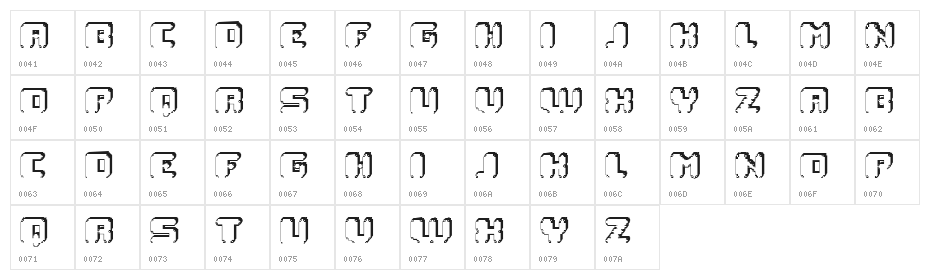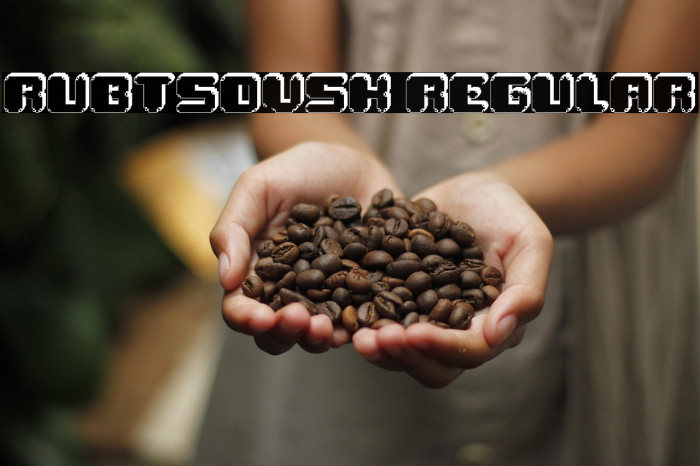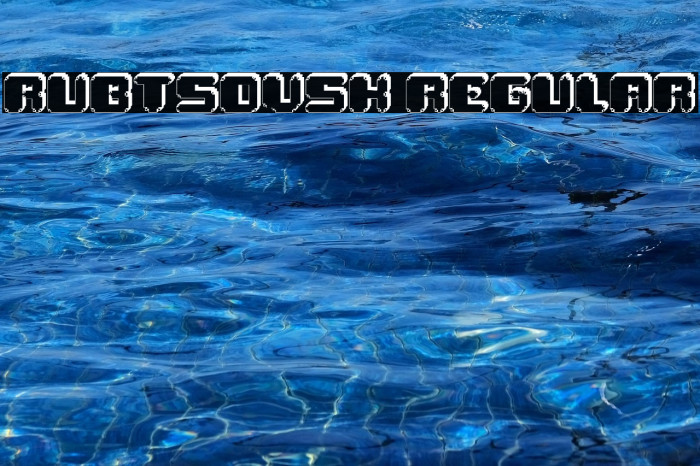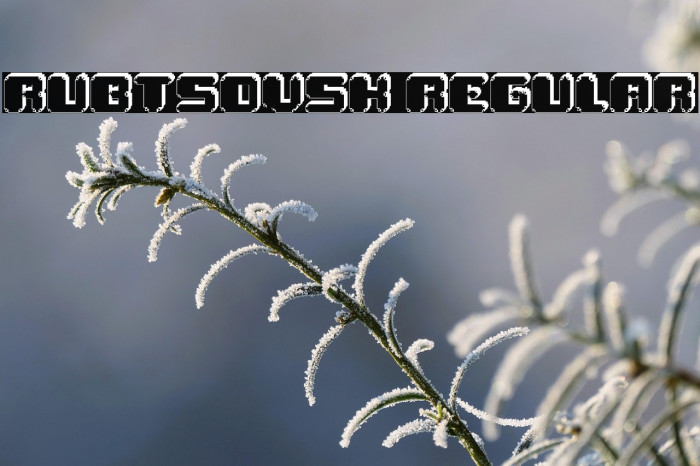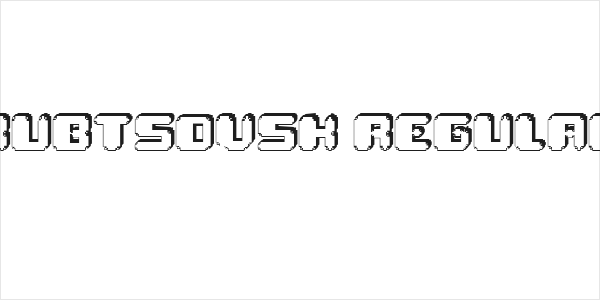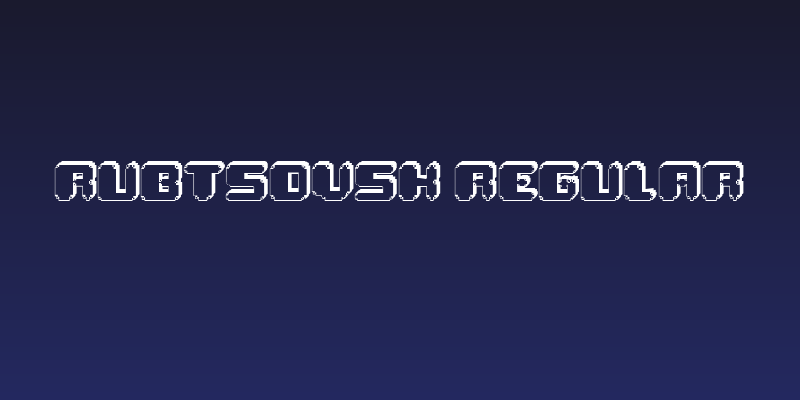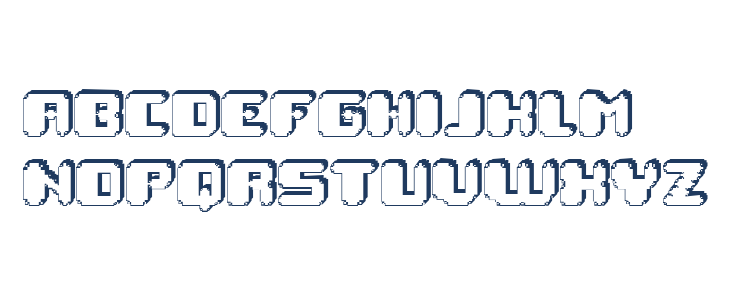
Rubtsovsk Regular Font
Rubtsovsk Regular Description
This font features a bold, geometric design with a distinct outline style. The characters are constructed with sharp, angular edges and a blocky appearance, giving it a modern and industrial feel. The uppercase letters are uniform in height and width, creating a cohesive and structured look. The font's unique outline adds a layer of depth, making it stand out in various design applications. Its boldness and clarity make it suitable for attention-grabbing headlines and titles.